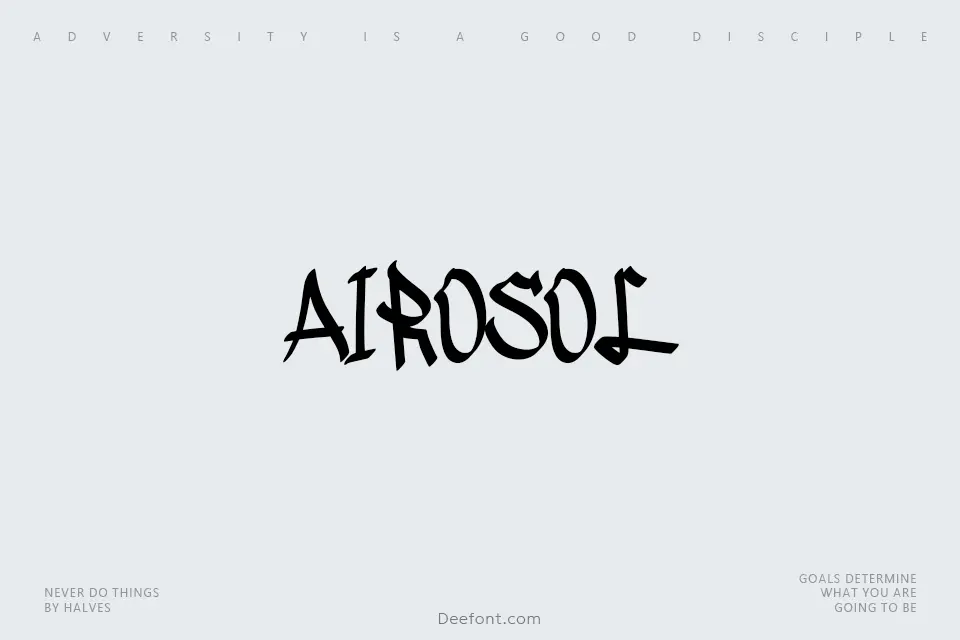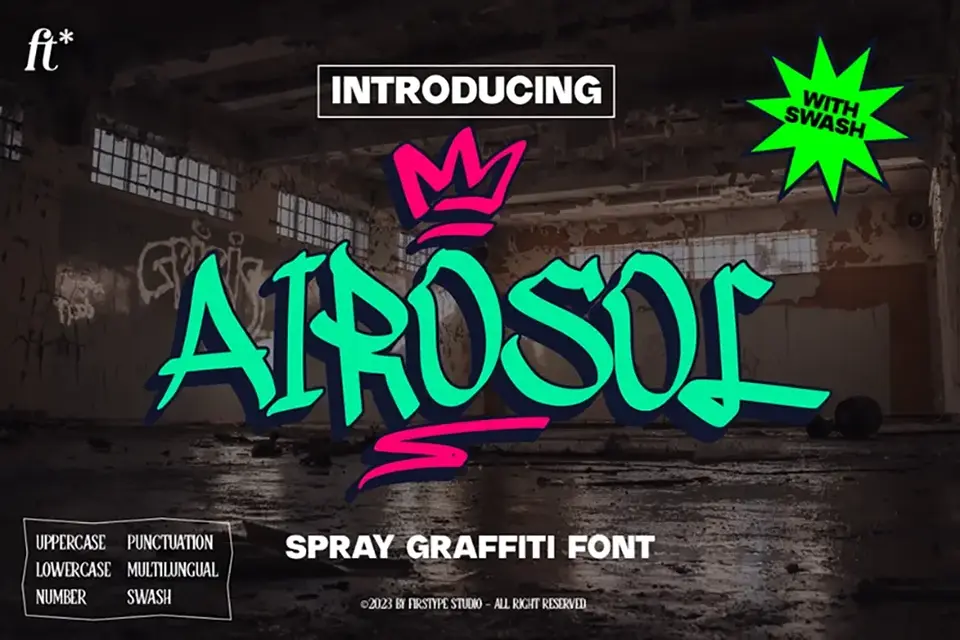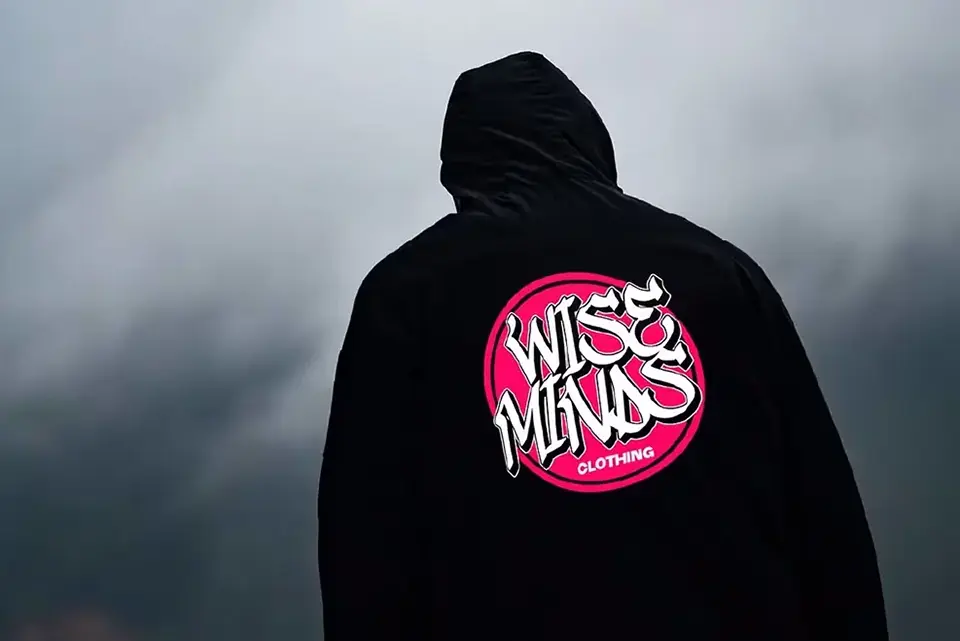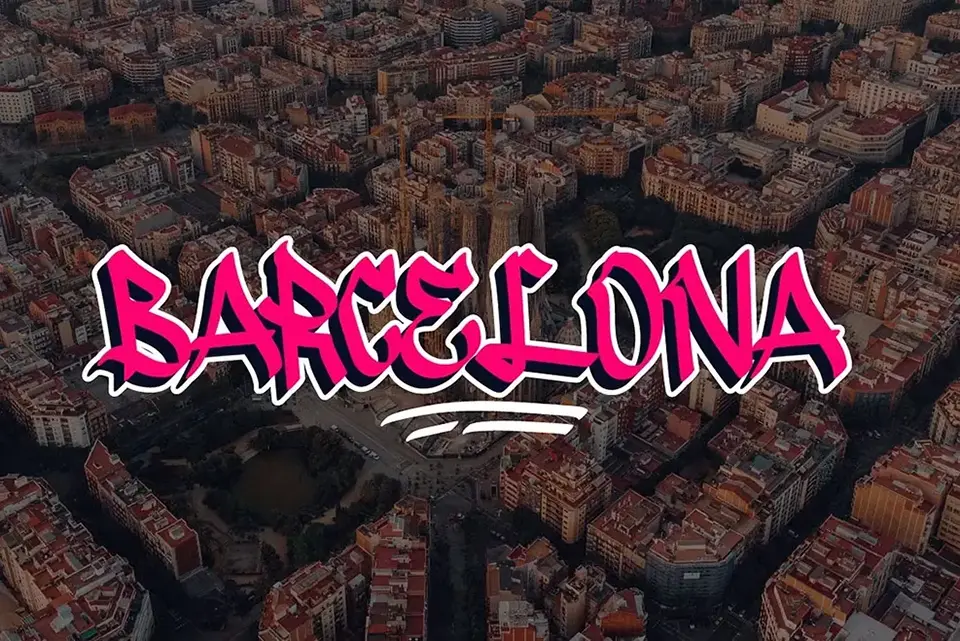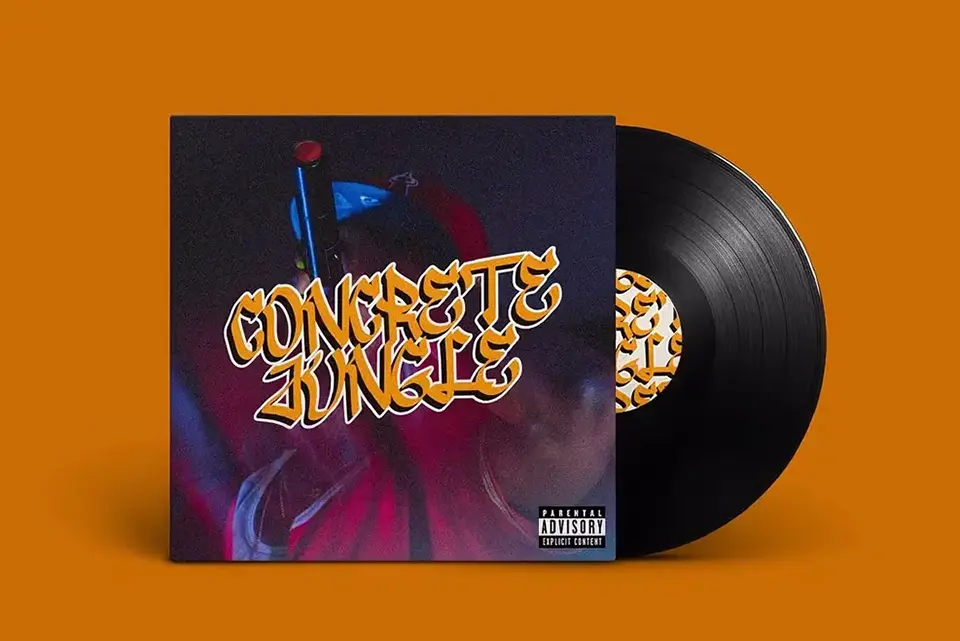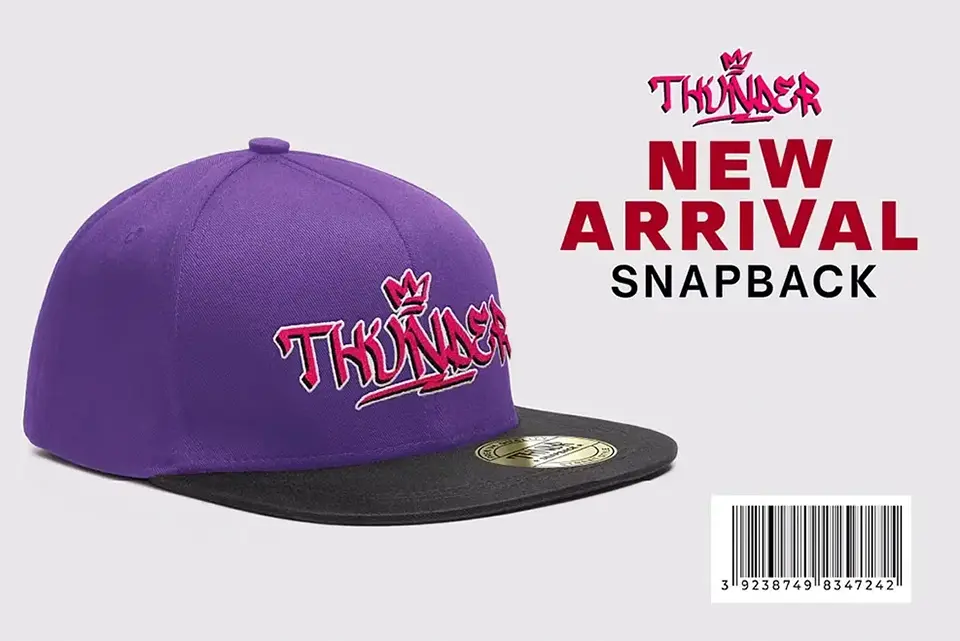
Airosol Font
Airosol is a distinctive spray graffiti font designed by Firstype Studio that perfectly balances street grit with legibility. With its blunt, inky strokes and characteristic off-kilter bends, the font captures the authentic feel of hand-sprayed tags while maintaining steady spacing for clean readability. The sturdy forms hold up beautifully at large sizes and remain crystal clear in sentence form, making it ideal for headlines, event posters, streetwear branding, album covers, packaging, and social media designs. The font delivers pure attitude without sacrificing clarity, offering one heavy weight with uppercase and lowercase letters, numbers, punctuation, and comprehensive character sets for Western, Central, and Southeast European languages.